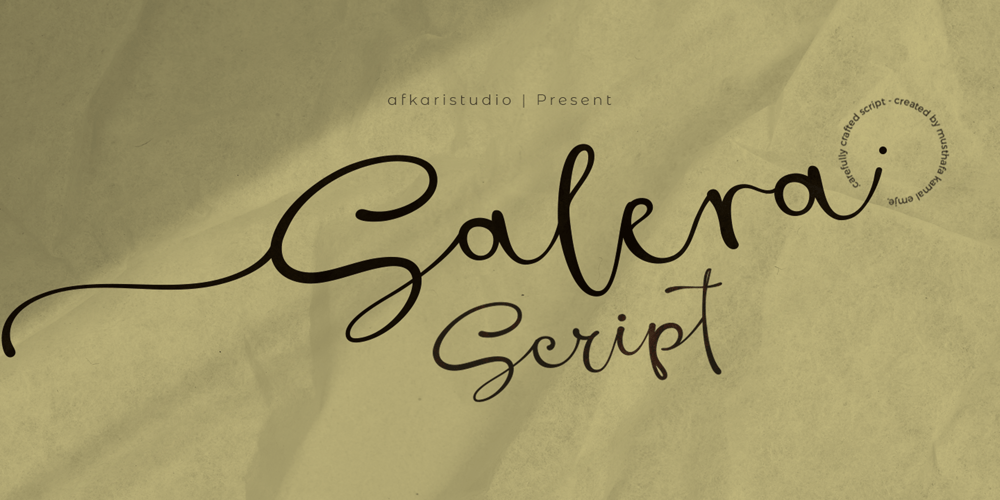
Salera Script Font Family was designed by Musthafa Kamal Emje and published by Afkari Studio. Salera Script contains 1 styles and family package options. Introducing Barona Script – Handwritten Signature FontBarona Script exudes timeless elegance with its graceful handwritten brush strokes. This font embodies a contemporary calligraphy style that seamlessly blends sophistication and playfulness, making it the ultimate choice for elevating your branding and digital designs. Barona Script offers a treasure trove of alternative glyphs and ligatures for endless creative possibilities. Whether you’re crafting quotes, logos, social media content, websites, blogs, or invitation cards, this font is your artistic companion.Barona Script’s Features:- Uppercase, Lowercase, Number, and Punctuation- Standart and Special Ligatures- Works on PC & Mac- Simple installations- Accessible in Adobe Illustrator, Adobe Photoshop, Adobe InDesign, and even work on Microsoft Word- Fully accessible without additional design software.- Mültîlíñgúãl Sùppört;Embrace Barona Script, and let your creativity flourish. Happy designing!